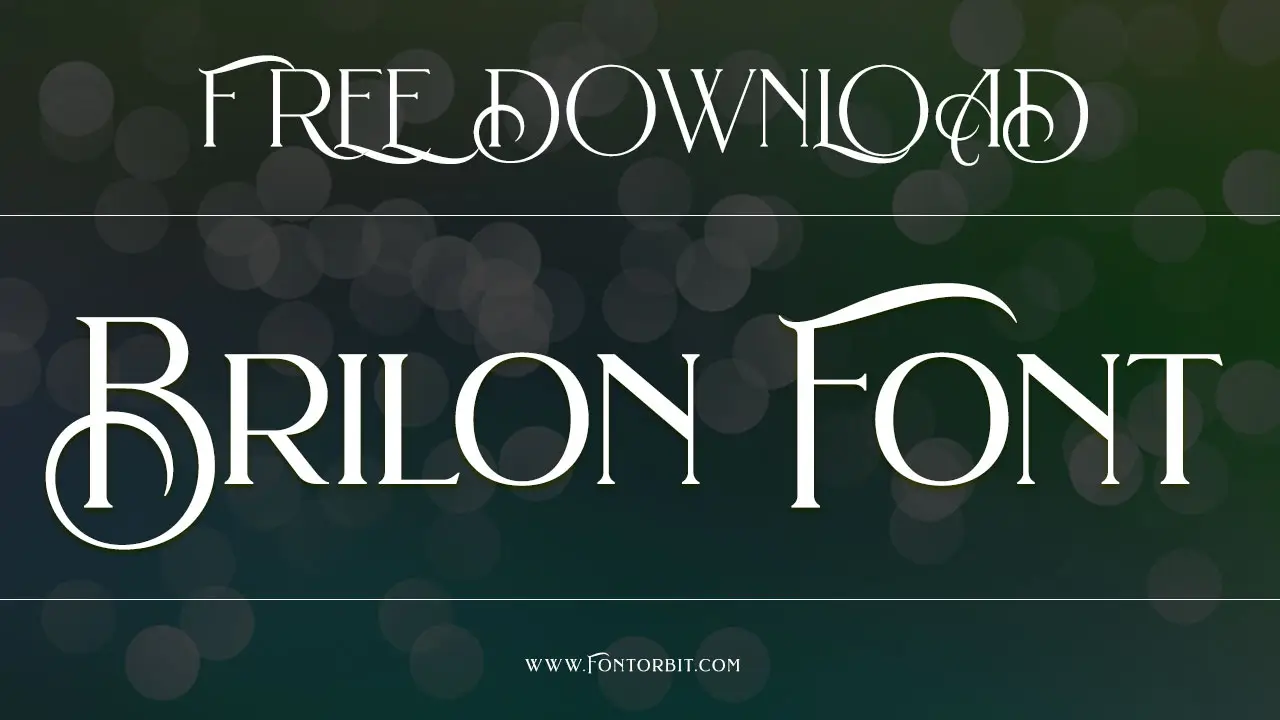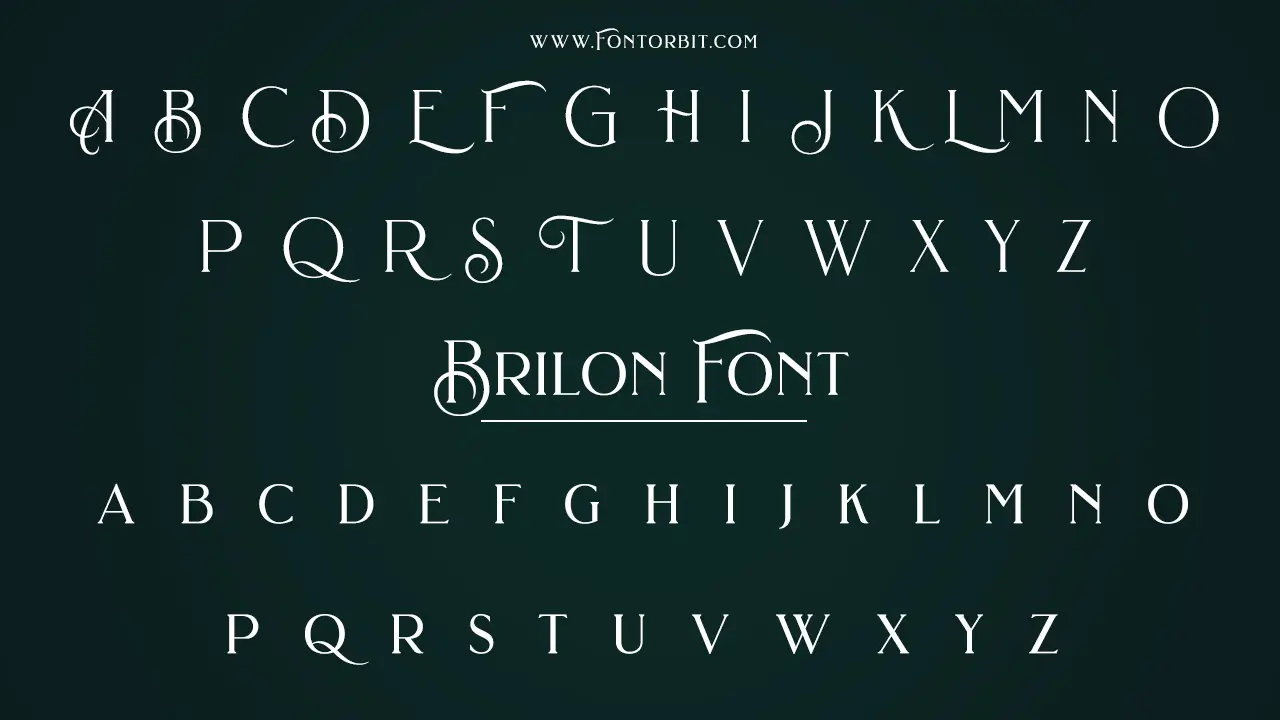
Brilon Font is an elegant serif font designed by Heritage Type Co. and inspired by the Art Deco era. Combining vintage esthetics with a modern look, this font features special uppercase letters, beautiful ligatures, and stylistic alternates.
Where Brilon Font Is In Use
- Elegant Logo Design: Ideal for creating vintage-style logos.
- Branding: Perfect for unique and sophisticated branding projects.
- Packaging Design: Works well in product packaging, adding elegance.
- Invitations and Cards: Excellent for designing elegant invitations, greeting cards, or event stationery.
- Posters: Perfect for stylish vintage posters.
- Product Presentation: Adds a vintage touch to design presentations.
- Pair with Montserrat: For a balanced mix of modern and classic.
- Pair with Lora: A subtle contrast, offering a softer, more contemporary feel when paired with Brilon’s vintage style.
- Pair with Roboto: A modern, geometric sans-serif font that contrasts beautifully with Brilon’s ornate features.
Brilon Font is a striking serif font that combines vintage aesthetics with a modern look. Its Art Deco inspiration is seen through its unique uppercase letters, beautiful ligatures, and stylistic alternates, making it perfect for elegant logo design, branding, and other high-end design projects.
Whether for packaging design, posters, or cards, this font brings a sense of elegance and sophistication to any project. With additional extras available in the paid version, it’s a font family that truly enhances your design work.
3.Does Brilon Font Support International Languages?
Brilon Font supports accented characters for Western European languages, such as Spanish, French, German, and Italian. This makes the font highly versatile for multilingual projects, such as international marketing, website content, and localized design work.
However, it may not support all non-Latin scripts or languages outside the Western European region, so it’s important to check the character set for specific language needs.